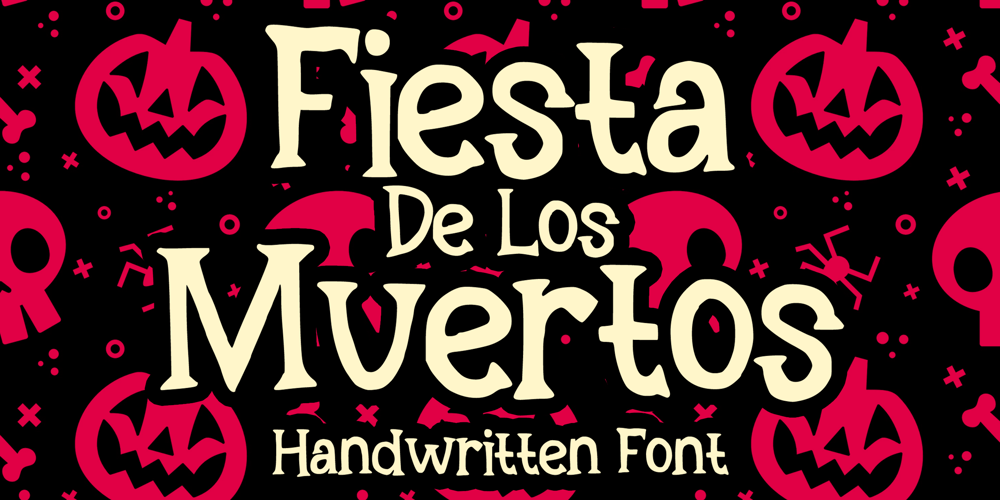
Fiesta De Los Muertos Font Family was designed by Gabriel Valentinus and published by Mvmet. Fiesta De Los Muertos contains 1 styles and family package options. Fiesta De Los Muertos is a fun and festive display font! Not only can be used for Halloween theme needs, you can use it too for other things for daily needs. Use it on t-shirts and clothing, book designs, greeting cards, stickers, posters, banners, or anything that needs a fun touch. Try it to create fabulous designs and feel the fun and cool vibes with it!